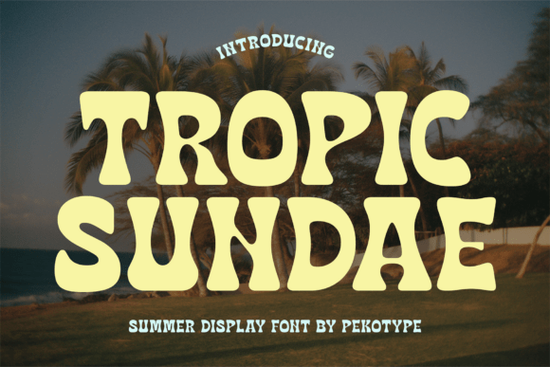
Designers, crafters, and small business owners looking for a unique way to add personality to their projects might find the Tropic Sundae Font perfect for their needs. This retro tropical display font brings a warm, fun, and nostalgic feel to any design while staying easy to read and full of character. Whether you're working on branding, packaging, or social media graphics, Tropic Sundae adds a cheerful touch that stands out.
With its bold curves and playful letterforms, Tropic Sundae is ideal for creating beach-themed visuals, tropical branding, or retro-inspired designs. The font’s style evokes sunny beach days and vintage travel posters, making it a great choice for anything with a laid-back summer vibe. It works well for logos, signage, café menus, and travel promotions, offering a fresh and memorable look that captures attention.
What makes Tropic Sundae stand out?
Tropic Sundae is more than just a font it’s a tool for storytelling. Its design elements reflect a carefree, tropical aesthetic that can transform ordinary text into something eye-catching. The font maintains readability even at larger sizes, which is important for signs, posters, and other visual materials where clarity matters. Its versatility allows it to fit into a wide range of projects without losing its charm.
Best uses for Tropic Sundae
One of the biggest advantages of Tropic Sundae is its adaptability. It works well for both digital and print projects, making it a go-to choice for designers who need a reliable, stylish font. For example, it can be used in social media graphics to create eye-catching captions or in packaging design to give products a fun, inviting look. Its bold and playful nature also makes it a strong candidate for signage and promotional materials.
Small businesses and print-on-demand sellers may find Tropic Sundae especially useful for creating branded merchandise, such as t-shirts, mugs, or stickers. The font’s retro feel can help establish a cohesive brand identity that resonates with customers looking for something unique. It’s also a great option for seasonal projects, like holiday promotions or summer campaigns, where a lively and colorful design is needed.
How to get the most out of Tropic Sundae
To make the most of Tropic Sundae, consider pairing it with simpler fonts for balance. Using it as a headline font while keeping body text in a more traditional typeface can help maintain readability without sacrificing style. Experimenting with color and layout can also enhance the overall impact of the design, allowing the font’s personality to shine through.
Whether you're designing for a café, a travel company, or a personal project, Tropic Sundae provides a fresh and inviting look that can elevate your work. Its combination of retro charm and modern usability makes it a valuable addition to any designer’s toolkit.
- Use Tropic Sundae for logos and branding to create a memorable visual identity.
- Pair it with simpler fonts for better readability in multi-element designs.
- Experiment with color and layout to highlight the font’s playful nature.
If you're looking for a font that brings warmth, fun, and nostalgia to your designs, Tropic Sundae is an excellent choice. It’s designed with creativity in mind, making it easy to use while still delivering a strong visual impact. Try it out and see how it can bring your next project to life.